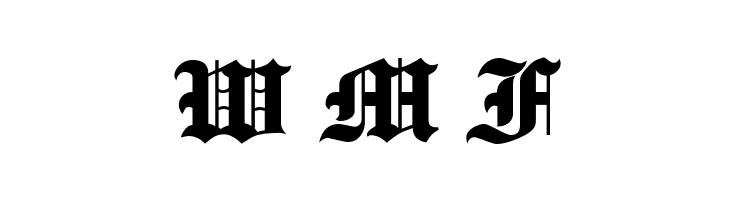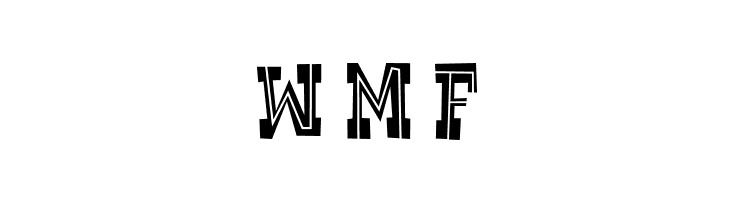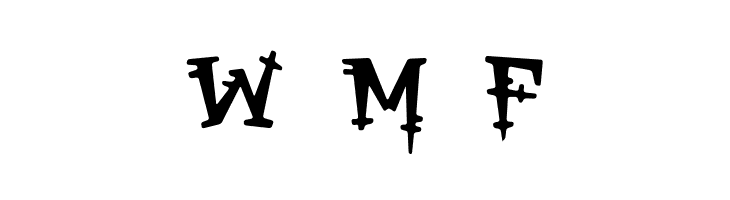
A playful, hand-drawn font with bold, wavy outlines and a whimsical style.
A bold, geometric font with a 3D effect and strong visual impact.
A bold, modern font with sharp edges and rounded corners for a striking look.
A sharp, gothic-inspired font with angular lines and dramatic spikes.
A bold, gothic-style font with sharp, angular edges and a distressed look.
A bold, dynamic font with sharp, angular strokes and artistic flair.
Cartoon and pixel art character font inspired by classic video games.
A geometric, architectural font with a modern, technical style.
A whimsical, hand-drawn font with a playful, spooky theme.
A bold, edgy font with sharp, angular lines and a rebellious flair.
A bold, decorative font with a Western flair and intricate detailing.
A bold, modern font with a unique horizontal line pattern for a dynamic look.